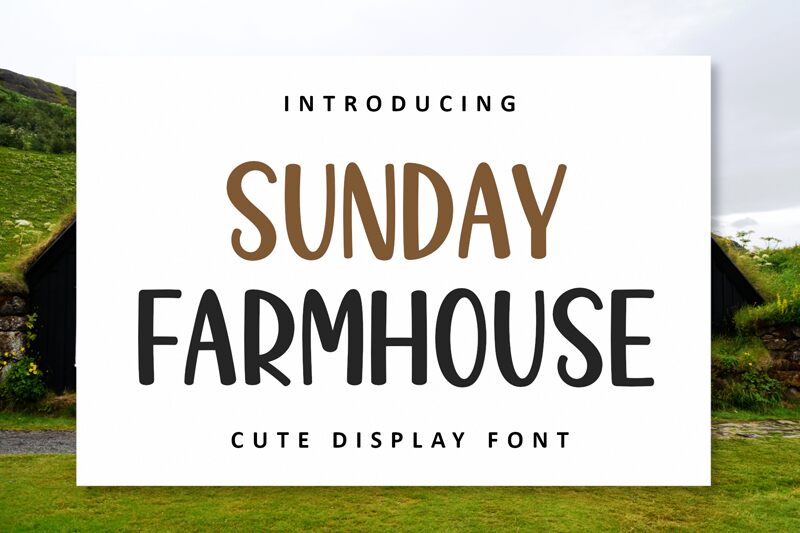
Sunday Farmhouse
Sunday Farmhouse, a creation by AV Type, brings the charm of handwritten artistry to the digital realm. Its semi-bold weight lends a touch of robustness to its flowing lines, embodying both warmth and confidence. The character of this font lies in its casual yet deliberate strokes, reminiscent of a leisurely weekend afternoon spent at a cozy countryside retreat.
With an aesthetic that balances readability with personality, Sunday Farmhouse is versatile enough for a variety of creative endeavors. Whether it's branding, invitation cards, or product packaging, this font infuses each project with an inviting and approachable vibe. Its handwritten style makes it especially suitable for designs aiming to convey authenticity and a personal touch.
Embrace the handcrafted essence of Sunday Farmhouse to elevate your designs with its uniquely personable character.